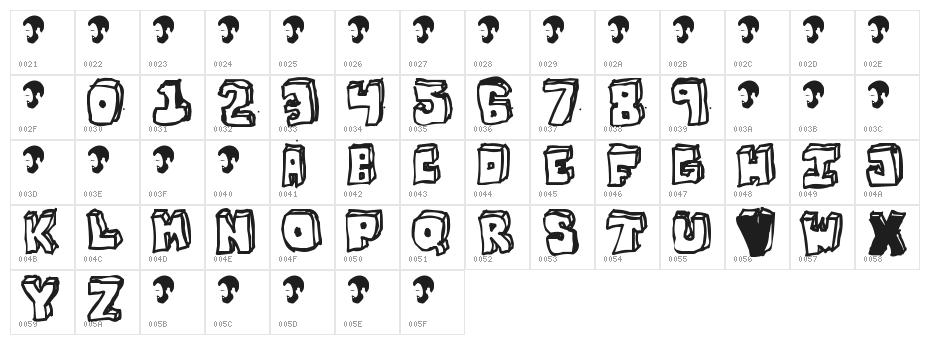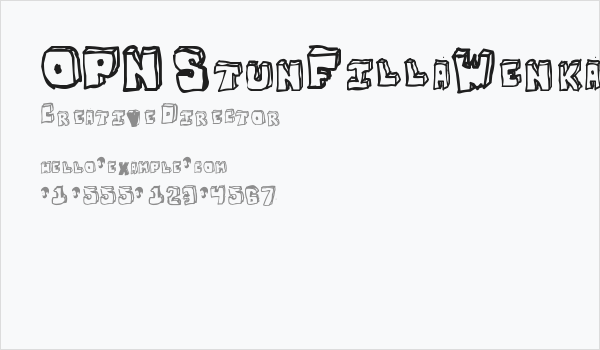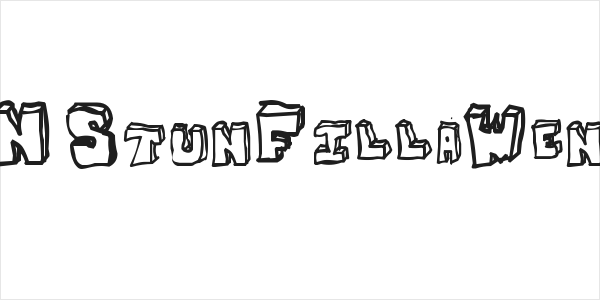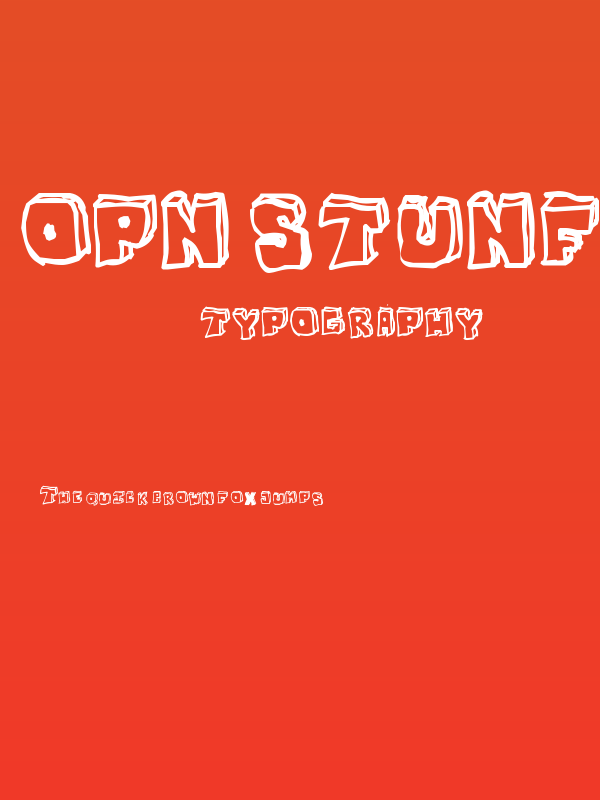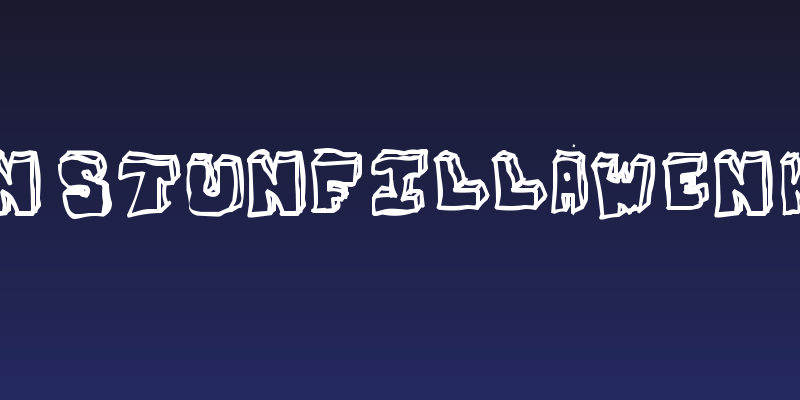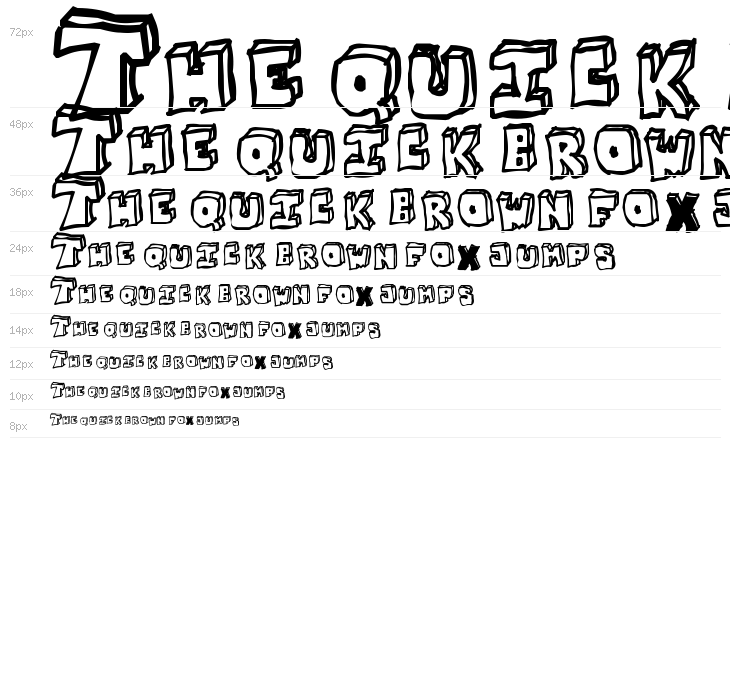
OPN StunFillaWenkay Font
This font features a bold, graffiti-inspired style with a rugged and edgy appearance. The letters are characterized by uneven, jagged edges and a hand-drawn aesthetic that gives them a raw, urban feel. The uppercase and lowercase letters maintain a consistent style, with exaggerated curves and angles that create a sense of movement and energy. Numbers and special characters follow the same design principles, ensuring a cohesive look across all elements. This font is ideal for projects that require a bold and unconventional typeface, such as street art, music album covers, or edgy branding materials.
| Overall Style | Urban, Edgy, Graffiti |
| Proposed Projects | Street art designs, music album covers, edgy branding materials, posters, and urban-themed graphics. |